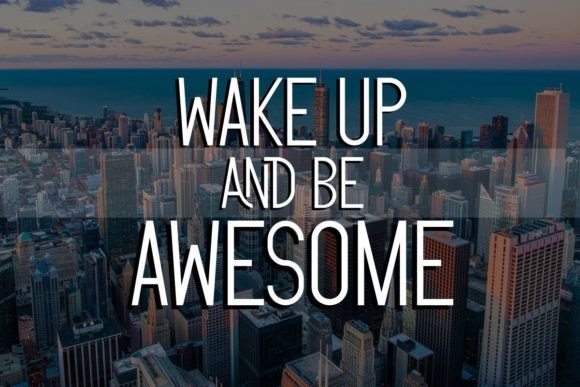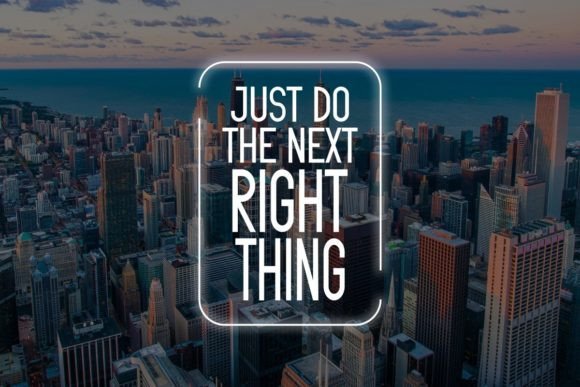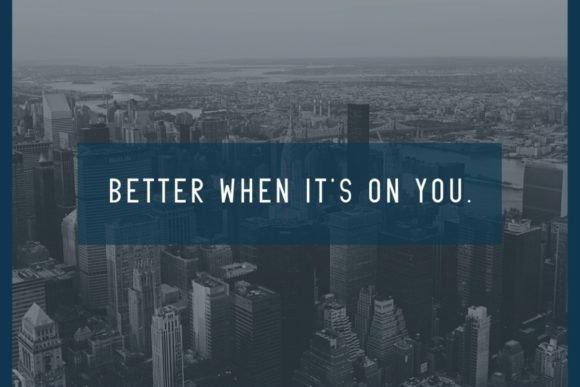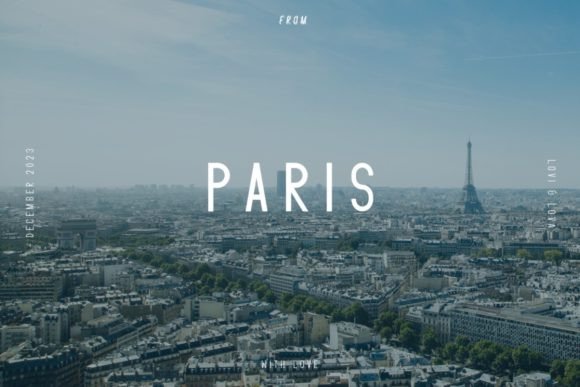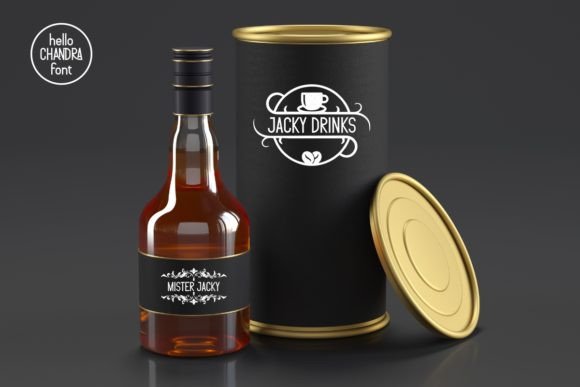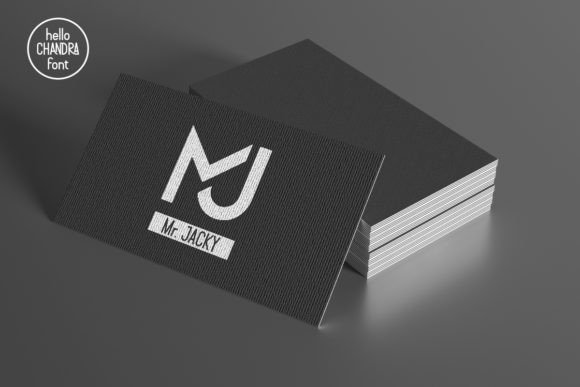
Introducing Hello Chandra Font: Elevate Your Brand with a Modern Display Font
In the world of typography, a well-crafted font can make all the difference in establishing a brand’s identity. For businesses and designers seeking a modern and sophisticated display font, look no further than “Hello Chandra.” This captivating and contemporary firm display font is designed to exude professionalism and flair, making it perfect for brands looking to make a bold statement in the corporate world.
The Essence of Hello Chandra Font
Hello Chandra is more than just a font – it’s a statement piece. With sleek and clean lines, this font embodies modernity, making it an ideal choice for businesses and brands seeking to project a forward-thinking and sophisticated image. The letterforms are elegantly crafted, striking a harmonious balance between professionalism and creativity. This balance allows Hello Chandra to seamlessly adapt to various design applications, from logos and branding to advertising and packaging.
Key Features of Hello Chandra Font
- Modern and Sophisticated Design: Hello Chandra boasts a contemporary design that instantly elevates any brand’s visual identity.
- Sleek and Clean Lines: The font’s sleek lines ensure clarity and legibility, making it perfect for both digital and print applications.
- Elegant Letterforms: Each letterform is carefully crafted to exude elegance and sophistication, adding a touch of luxury to any design.
- Versatile: Hello Chandra is versatile and adaptable, suitable for a wide range of design projects, from corporate branding to creative advertising.
Why Choose Hello Chandra Font?
In a crowded marketplace, standing out is crucial. Hello Chandra font offers a unique combination of style, professionalism, and creativity that can help your brand capture attention and leave a lasting impression. Here are a few reasons why designers and crafters are gravitating towards Hello Chandra:
- Uniqueness: Hello Chandra’s distinctive design ensures your brand doesn’t get lost in the sea of generic fonts.
- Professionalism: The font’s clean and elegant design communicates professionalism and reliability, essential for building trust with your audience.
- Creativity: Despite its professional appearance, Hello Chandra allows for creative freedom, enabling designers to experiment with various design elements.
Using Hello Chandra in Design Projects
Integrating Hello Chandra into your design projects is straightforward. Its compatibility with various design software and platforms ensures a seamless integration process. Here are some ideas on how to use Hello Chandra effectively:
- Branding and Logos: Use Hello Chandra as a primary font for your logo or as a complementary font to add a touch of sophistication.
- Advertising and Marketing Materials: Elevate your advertising and marketing materials with Hello Chandra, making your campaigns stand out.
- Packaging Design: Add a professional and modern touch to your product packaging with Hello Chandra.
- Digital Media: Utilize Hello Chandra in your website design, social media graphics, and digital advertisements to create a cohesive brand image.
Hello Chandra font is a game-changer for designers and brands seeking a modern, sophisticated, and professional display font. Its unique blend of style, elegance, and versatility makes it an indispensable tool in the world of design. Whether you’re looking to revamp your brand’s identity or simply want to add a touch of modernity to your design projects, Hello Chandra is an excellent choice. Embrace the power of typography with Hello Chandra and watch your brand’s visual identity soar to new heights.
- What makes Hello Chandra unique?
- Hello Chandra’s unique blend of modernity, elegance, and professionalism sets it apart from other fonts.
- Is Hello Chandra suitable for digital use?
- Yes, Hello Chandra is designed to be legible and clear on digital platforms, making it perfect for website designs, social media graphics, and more.